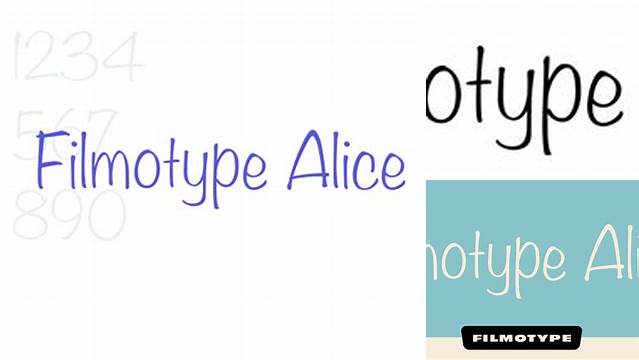
Filmotype Alice: Free Font Guide, Download & Uses
Hey guys! Ever stumbled upon a font that just screams vintage charm? Let's dive into the world of Filmotype Alice, a seriously cool typeface that brings a touch of retro elegance to your projects. We're going to explore everything about it, from its origins to how you can snag it for free and use it like a pro. Buckle up, font fanatics!
What is Filmotype Alice?
So, what exactly is Filmotype Alice? This gem is a digital revival of a classic typeface from the Filmotype library. Filmotype was a company renowned for its extensive collection of fonts used in phototypesetting back in the mid-20th century. Filmotype Alice captures the essence of that era with its distinct, slightly quirky, and undeniably stylish letterforms. It's got that hand-lettered feel that makes it stand out from the crowd of sterile, digital fonts we often see today. If you’re looking for a font that adds a touch of nostalgia and personality, Filmotype Alice might just be your new best friend. Its vintage flair makes it perfect for projects that need a bit of old-school charm. Think logos, posters, invitations, and even website headers—anything that could benefit from a dash of retro sophistication. Plus, because it’s based on a real typeface from the past, it carries with it an authenticity that’s hard to replicate with modern designs. You're not just using a font; you're using a piece of history, reimagined for the digital age. And who wouldn’t want that?
The History of Filmotype
Before we get deeper into Filmotype Alice, let's take a quick trip down memory lane to understand the history of Filmotype itself. This company played a pivotal role in the world of typography during the mid-20th century. Filmotype specialized in producing fonts for phototypesetting, a process that revolutionized printing and design. Instead of using metal type, phototypesetting used photographic methods to create letterforms, offering designers greater flexibility and a wider range of font choices. Filmotype's extensive library of fonts became a go-to resource for designers and printers alike. Their fonts were known for their quality, variety, and unique character. They ranged from elegant scripts to bold display faces, catering to a diverse range of design needs. Unfortunately, like many companies in the pre-digital era, Filmotype eventually faded from prominence as digital typography took over. However, their legacy lives on through digital revivals like Filmotype Alice, which bring these classic typefaces to a new generation of designers. By understanding the history of Filmotype, you gain a greater appreciation for the craftsmanship and artistry that went into creating these fonts. It's not just about using a pretty typeface; it's about connecting with a rich history of design and innovation.
Key Features of Filmotype Alice
Okay, so what makes Filmotype Alice so special? It's all in the details, guys! This font boasts a unique blend of characteristics that set it apart. One of the most notable features is its slightly irregular letterforms. Unlike perfectly uniform digital fonts, Filmotype Alice has subtle variations in stroke width and shape, giving it a hand-lettered feel. This adds a touch of warmth and authenticity to your designs. Another key feature is its elegant curves and flowing lines. The letters have a graceful, almost calligraphic quality that makes them visually appealing. This makes Filmotype Alice particularly well-suited for display purposes, such as headlines, logos, and signage. The font also includes a range of ligatures and alternate characters, allowing you to customize the look and feel of your text. Ligatures are special characters that combine two or more letters into a single glyph, creating a more seamless and visually pleasing appearance. Alternate characters offer different stylistic options for certain letters, giving you even more flexibility in your designs. Overall, Filmotype Alice is a versatile font that can be used in a variety of contexts. Its unique features make it a great choice for projects that need a touch of vintage charm and personality.
Using Filmotype Alice in Your Designs
Now that you've got your hands on Filmotype Alice, it's time to put it to work! But how do you use it effectively in your designs? Here are a few tips to get you started. First, consider the overall tone and style of your project. Filmotype Alice is a vintage-inspired font, so it works best in designs that have a retro or nostalgic feel. Think vintage posters, wedding invitations, and classic logos. Don't try to force it into a modern, minimalist design – it's just not going to work. Next, pay attention to the font's readability. Filmotype Alice is a display font, meaning it's best used for headlines and titles rather than large blocks of text. Its unique letterforms can be difficult to read in small sizes, so stick to using it sparingly. When pairing Filmotype Alice with other fonts, choose typefaces that complement its style. Sans-serif fonts like Helvetica or Arial can provide a clean, modern contrast, while serif fonts like Garamond or Times New Roman can create a more traditional look. Experiment with different combinations to see what works best for your project. Finally, don't be afraid to get creative with the font's features. Use ligatures and alternate characters to add a unique touch to your designs. Adjust the letter spacing and kerning to improve readability and visual appeal. By following these tips, you can use Filmotype Alice to create stunning designs that capture the essence of vintage charm.
Filmotype Alice for Logos and Branding
Thinking of using Filmotype Alice for your logo or branding? Great choice! This font can add a touch of vintage sophistication to your brand identity. When designing a logo with Filmotype Alice, keep the following tips in mind. First, make sure the font is legible at different sizes. Your logo will likely be used in a variety of contexts, from business cards to website headers, so it's important that it remains readable no matter how small it gets. If the font becomes too difficult to read at smaller sizes, consider using a simplified version or a different font altogether. Next, think about the overall message you want to convey with your logo. Filmotype Alice has a distinct vintage feel, so it's best suited for brands that want to project a sense of history, tradition, or craftsmanship. If your brand is more modern or edgy, this font might not be the best fit. When choosing colors for your logo, consider using a palette that complements the font's vintage style. Earthy tones, muted colors, and classic combinations like black and white can work well. Avoid using overly bright or neon colors, as they can clash with the font's aesthetic. Finally, don't be afraid to experiment with different variations of the font. Use ligatures and alternate characters to create a unique and memorable logo. Adjust the letter spacing and kerning to improve readability and visual appeal. By following these tips, you can use Filmotype Alice to create a logo that perfectly captures the essence of your brand.
Filmotype Alice in Web Design
So, you're thinking about using Filmotype Alice on your website? Awesome! A touch of vintage typography can really make your site stand out. But before you go wild, let's talk about how to use it effectively for web design. First things first: readability. While Filmotype Alice is gorgeous, it's not the most readable font for large blocks of text. Use it sparingly for headings, titles, and short snippets of text. For body text, stick to more legible fonts like Arial, Helvetica, or Open Sans. Next, consider the loading time. Filmotype Alice might not be a standard web font, which means it could take longer to load than other fonts. This can slow down your website and frustrate your visitors. To avoid this, use a web font service like Google Fonts or Adobe Fonts to ensure that the font is properly optimized for the web. When choosing colors for your website, use a palette that complements the font's vintage style. Earthy tones, muted colors, and classic combinations like black and white can work well. Avoid using overly bright or neon colors, as they can clash with the font's aesthetic. Finally, make sure your website is responsive. This means that it should look good on all devices, from desktops to smartphones. Test your website on different devices to ensure that the font is legible and that the layout is properly optimized. By following these tips, you can use Filmotype Alice to create a website that is both visually stunning and user-friendly.
Pairing Filmotype Alice with Other Fonts
One of the keys to using Filmotype Alice effectively is knowing how to pair it with other fonts. The right font pairing can elevate your design and create a cohesive, visually appealing look. But the wrong pairing can be a disaster. So, how do you choose the right fonts to go with Filmotype Alice? First, consider the overall style and tone of your project. Filmotype Alice has a distinct vintage feel, so it's best paired with fonts that complement its style. For a classic, elegant look, try pairing it with a serif font like Garamond, Times New Roman, or Bodoni. These fonts have a timeless quality that complements Filmotype Alice's vintage charm. For a more modern, contemporary look, try pairing it with a sans-serif font like Helvetica, Arial, or Open Sans. These fonts provide a clean, minimalist contrast to Filmotype Alice's ornate letterforms. When choosing a sans-serif font, look for one that has a similar x-height to Filmotype Alice. The x-height is the height of the lowercase letters, and it can have a big impact on the overall readability of your design. Another option is to pair Filmotype Alice with a script font. This can create a playful, whimsical look that's perfect for invitations, greeting cards, and other fun projects. Just be careful not to overdo it. Too many script fonts can be overwhelming and difficult to read. Finally, don't be afraid to experiment. Try out different font pairings to see what works best for your project. The key is to find fonts that complement each other and create a cohesive, visually appealing look. By following these tips, you can create stunning designs that showcase the beauty of Filmotype Alice.
Filmotype Alice for Print Projects
Let's talk about using Filmotype Alice for print projects. Whether you're designing posters, invitations, or business cards, this font can add a touch of vintage elegance to your printed materials. When using Filmotype Alice for print, there are a few things to keep in mind. First, make sure the font is properly embedded in your document. This will ensure that the font appears correctly when the document is printed, even if the printer doesn't have the font installed. In most design programs, you can embed fonts by selecting the